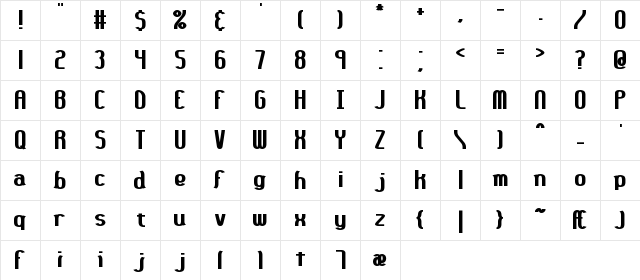
Design Context for 36 days ago Thick BRK
36 days ago Thick BRK is a composed and adaptable typeface that performs quietly and consistently across a wide range of design contexts.
Pro Tip: Use 36 days ago Thick BRK in both headline and body roles to test its range before committing to a single application.